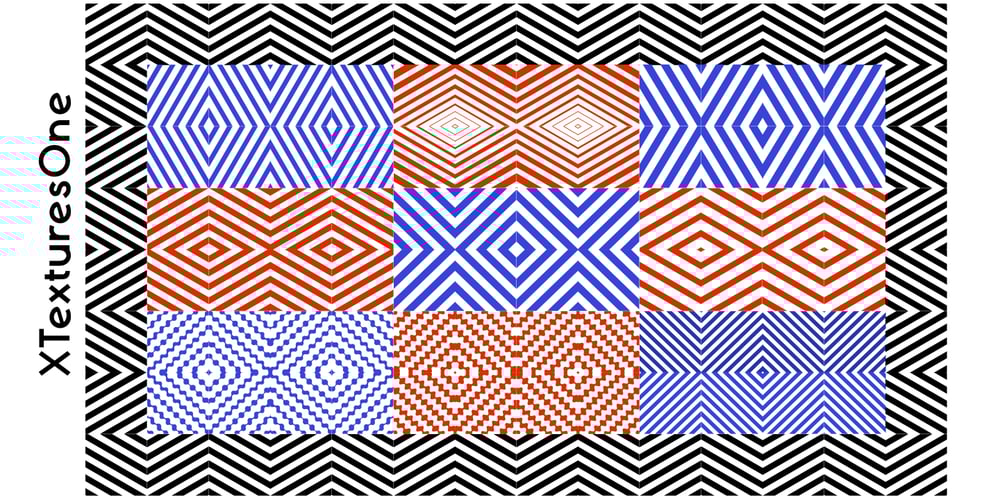
XTextures
XTextures font
XTextures Font Family was designed by Robert Schenk and published by Ingrimayne Type. XTextures contains 2 styles and family package options. The XTextures package contains two typefaces that can be used to create borders or backgrounds. The elements are simple stripes, spots, and cracks. Some of them are flipped and rotated so that they can be combined to create endless patterns that connect and repeat.